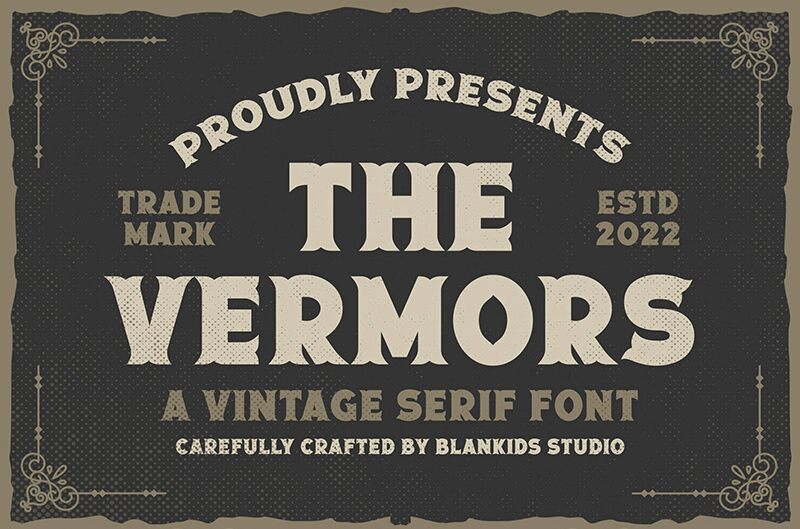
Vermors, the remarkable creation by Bangkit Tri Setiadi, is an extraordinary display font that combines a western, vintage charm with its elegant serif style. With its extra-bold weight, Vermors exudes confidence and makes a bold statement. Perfect for branding projects that require a touch of nostalgia and authenticity, this font captures the essence of classic American typography. Whether you're working on logo designs for whiskey distilleries or creating eye-catching posters for retro-inspired events, Vermors will effortlessly elevate your projects to new heights. Embrace the allure of yesteryears with this captivating typeface.
Vermors by Blankids Studio